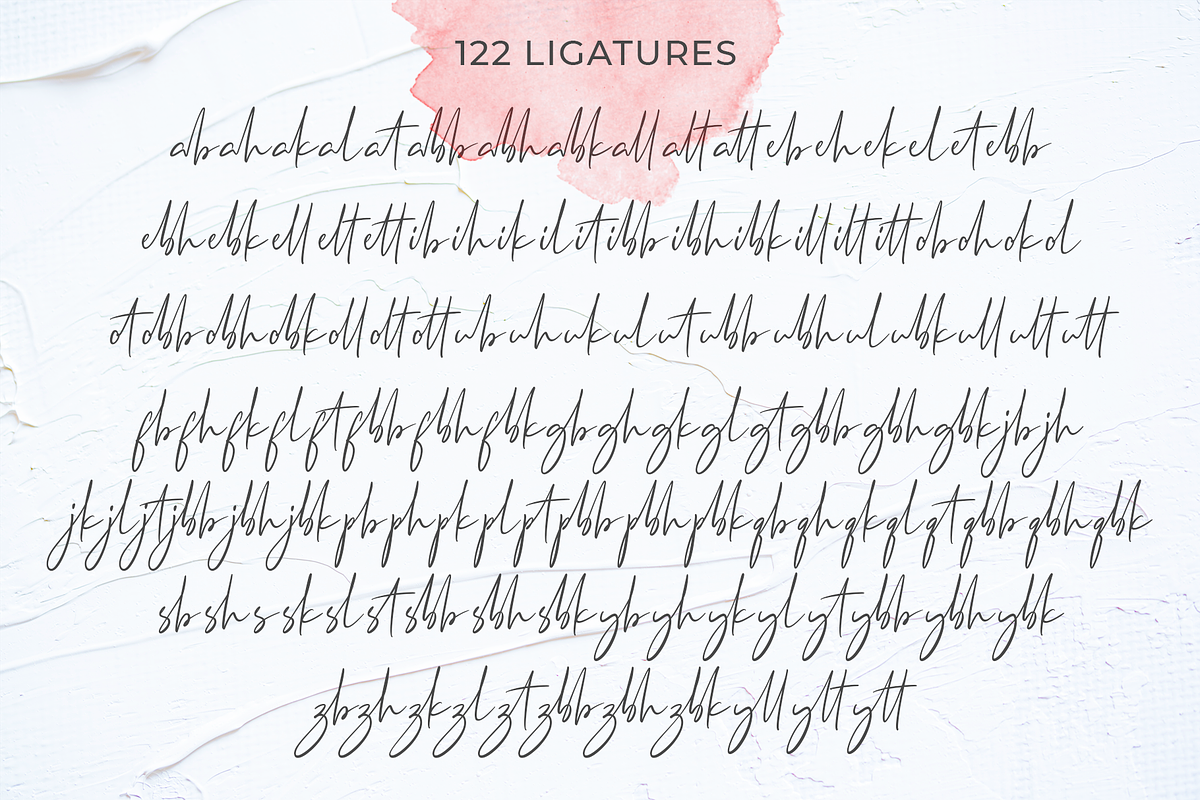
Crystal Vibes & Extras
GOOD VIBES ONLY I think this is the right word to describe Crystal Vibes. This duo font is a beautiful combination between Hi-Res Botanical Summer Vibes SVG Font and Handwritten Font with massive ligatures.
- Crystal Vibes - SVG
A sophisticated illustration of manually drawn botanical letters.
- Crystal Vibes - Script
Full set of Signature Style of uppercase, lowercase, multilingual support, & massive ligatures.
- Watercolor Wreaths & Objects
This is a bonus that will help you make beautiful work.
- Watercolor Brush
This brush helps you make messy effects, backgrounds etc.